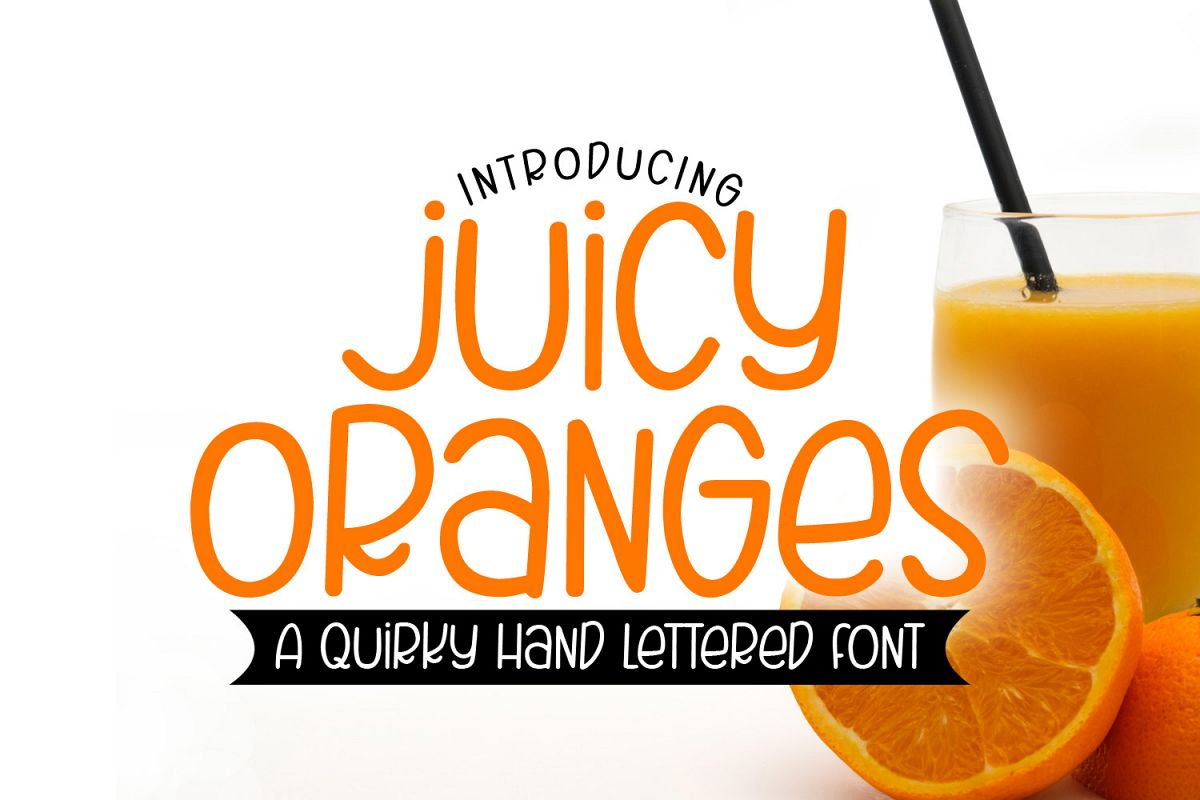
Juicy Oranges - A Smooth Quirky Hand Lettered Font by DWS
Juicy Oranges is a quirky and very smooth ALL CAPS font that I hand lettered and then carefully cleaned up so it should work well with your Silhouette, Cricut, other cutting machines and many types of craft projects!